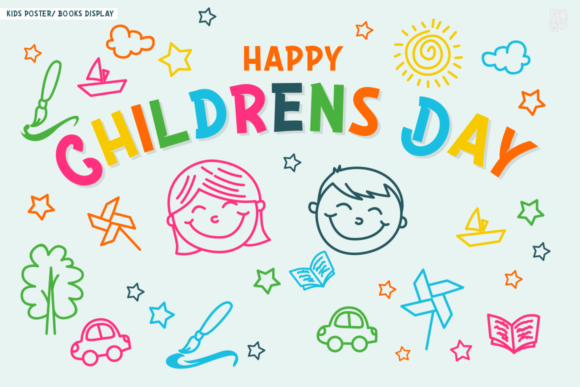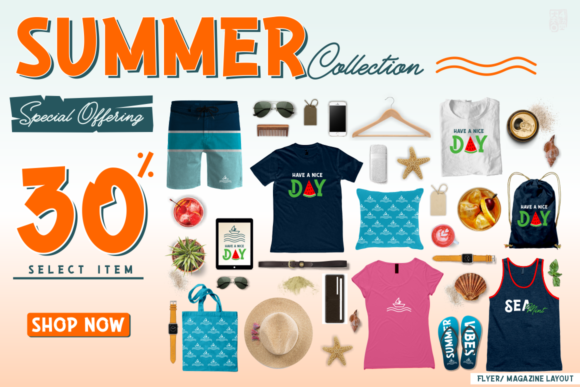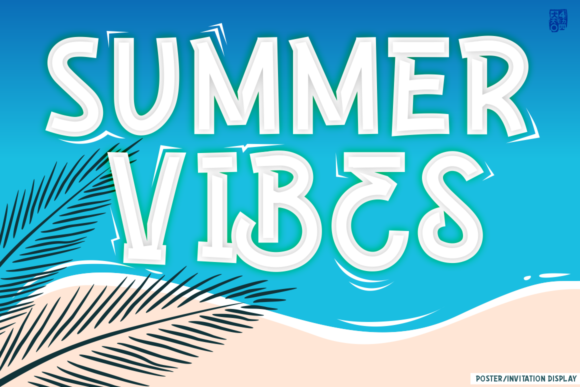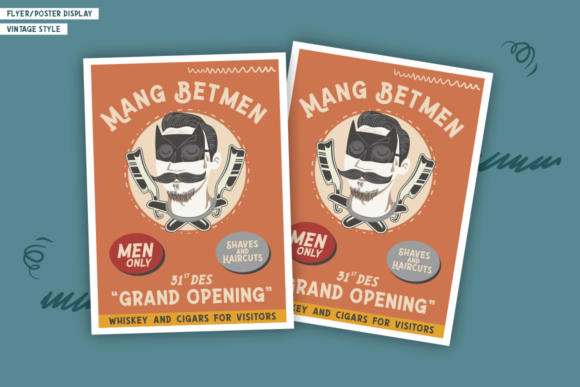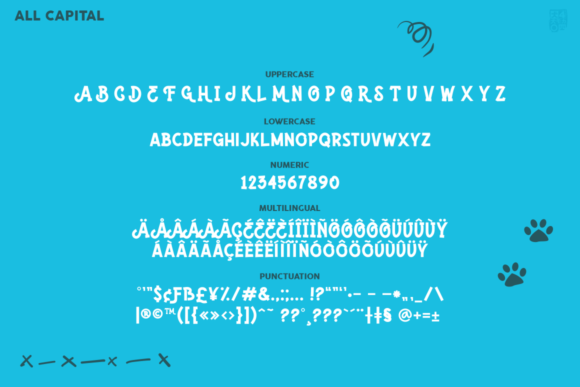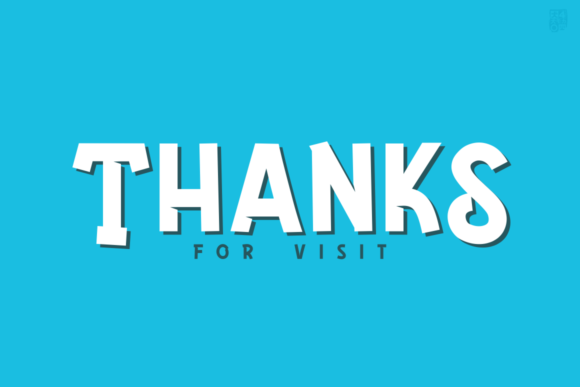
Introduction to Padding Toons Font
Padding Toons is a cute and fun display font.
It embodies playfulness and authenticity and is the perfect choice for any children activity or school project Add this chunky lettered font to your designs and notice how it makes them come alive.